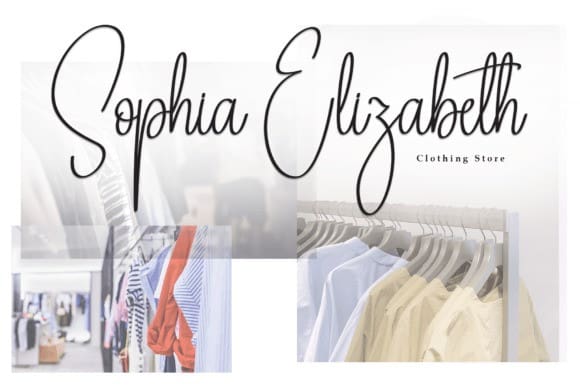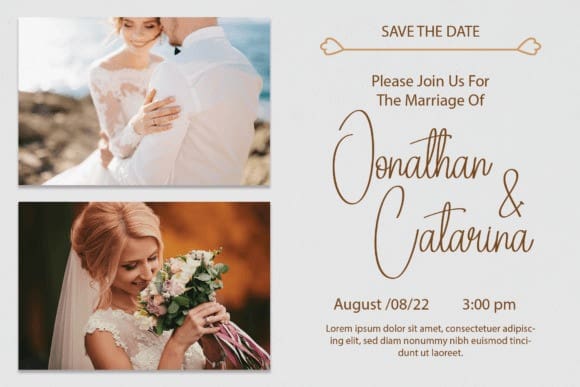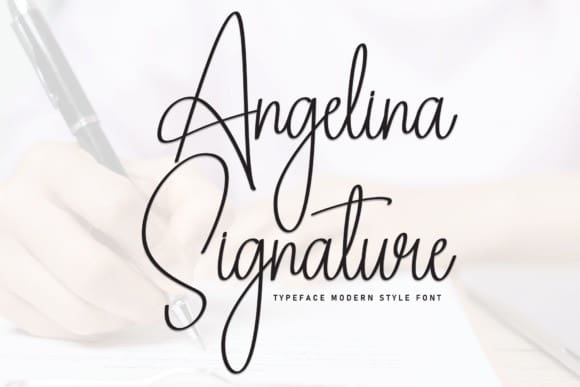
Angelina Signature Font
Angelina Signature Font is a handwritten font that adds a personal touch to your digital signature. With its flowing and graceful style, it mimics the elegance of a hand-signed name. Perfect for giving your documents or designs a human touch, Angelina Signature brings a warm and personalized feel to any project, making it stand out with simplicity and charm.